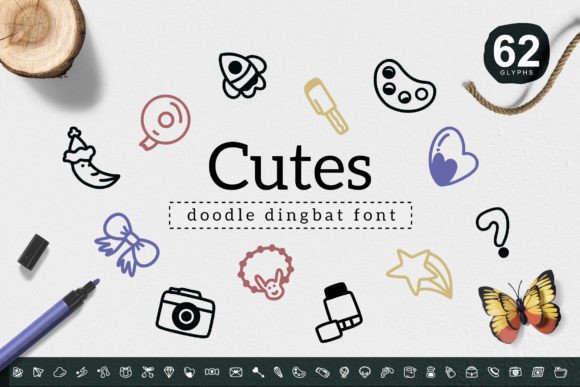
Journey into the world of Cutes Font, a captivating dingbats font family that will transform your designs into adorable masterpieces. Crafted with meticulous attention to detail by YandiDesigns, Cutes Font is the ultimate choice for adding a touch of whimsy and charm to your creative projects.
Unleash your imagination and let Cutes Font guide you through a world of endless possibilities. Create delightful stickers that bring smiles to faces, design posters that captivate audiences, and craft t-shirts that exude personality. Transform ordinary cards into extraordinary expressions of affection, and elevate apparel graphics with a playful twist. The possibilities are limitless with Cutes Font.
Imagine the joy of seeing your designs come to life, infused with the unique charm of Cutes Font. Your stickers will become irresistible, your posters will demand attention, and your t-shirts will be the talk of the town. Cards crafted with Cutes Font will carry heartfelt messages with an added touch of delight, while apparel graphics will exude a playful spirit that resonates with your audience.
Cutes Font is more than just a font; it's an invitation to embark on a creative adventure where imagination knows no bounds. Embrace the power of Cutes Font and unlock a world of delightful designs that will leave a lasting impression.